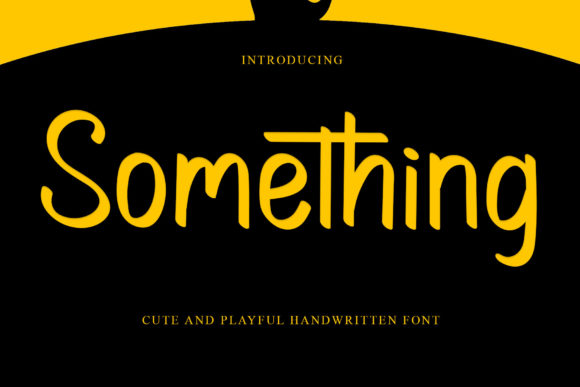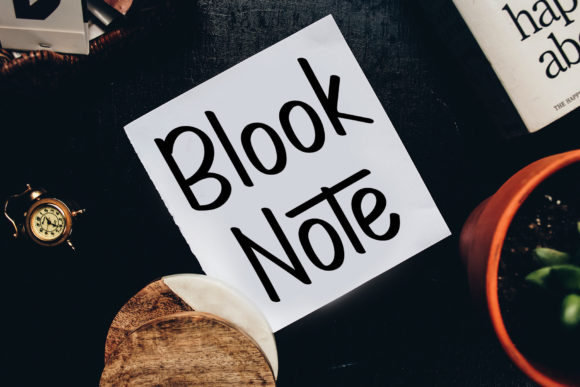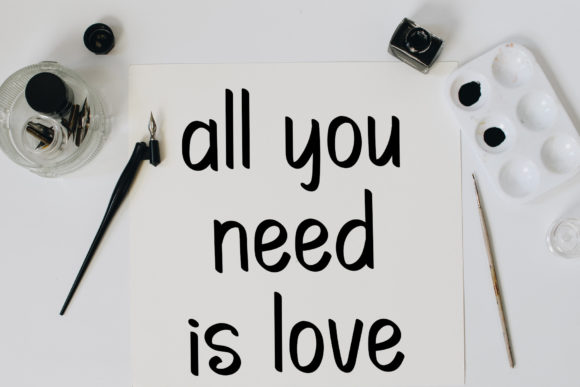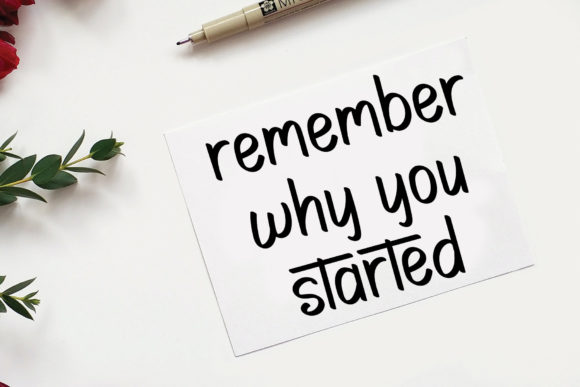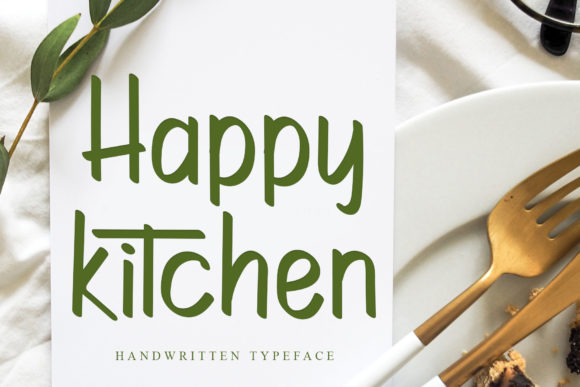
Something Font
About Something Font
Something is a unique and elegant handwritten font. Simple and easy to use, this font will be very beautiful if you mix it with your various craft designs.